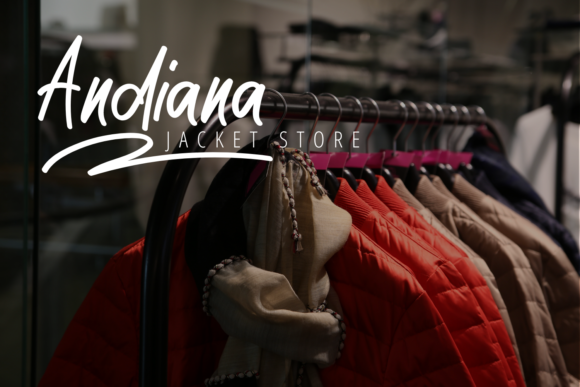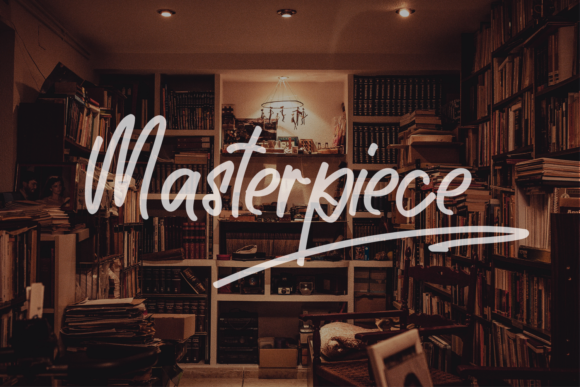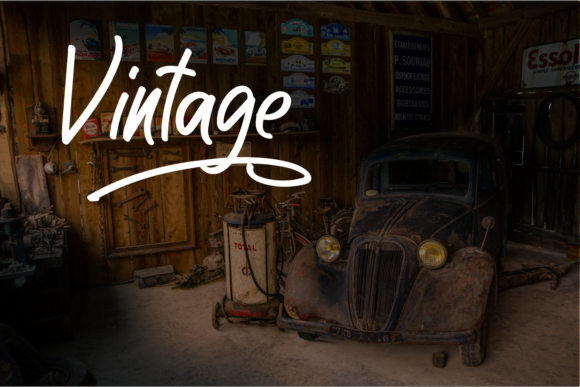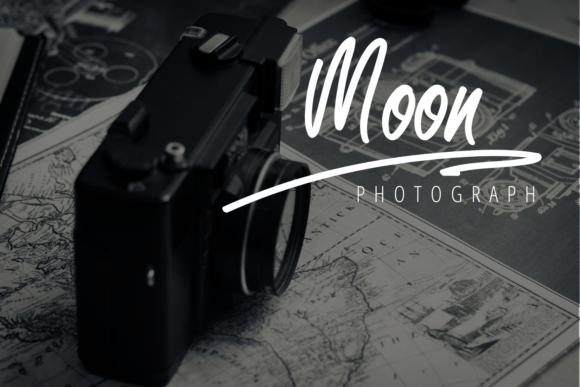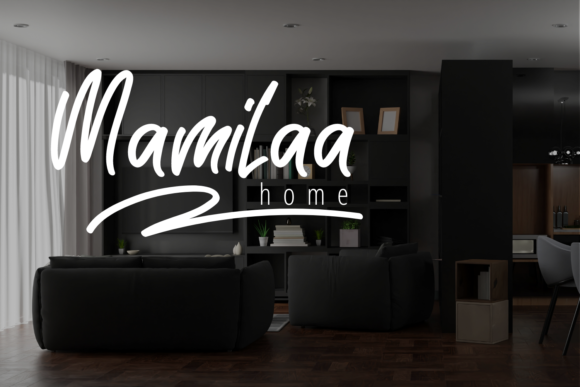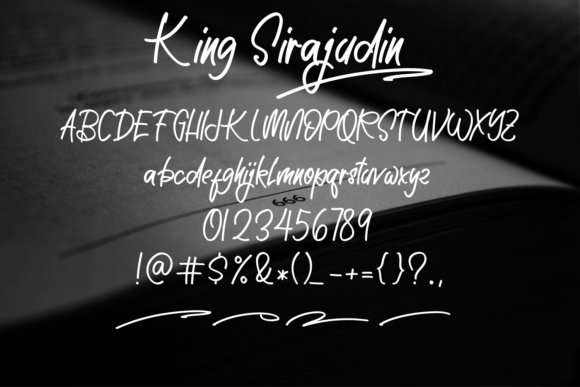
Introduction to King Sirajudin Font
King Sirajudin is a lovely and timeless handwritten font.
Key Features of King Sirajudin Font
Why Choose King Sirajudin Font?
King Sirajudin Font offers exceptional quality and versatility, making it a valuable addition to your design toolkit. Whether you’re creating for personal projects or commercial use, King Sirajudin Font delivers professional results.